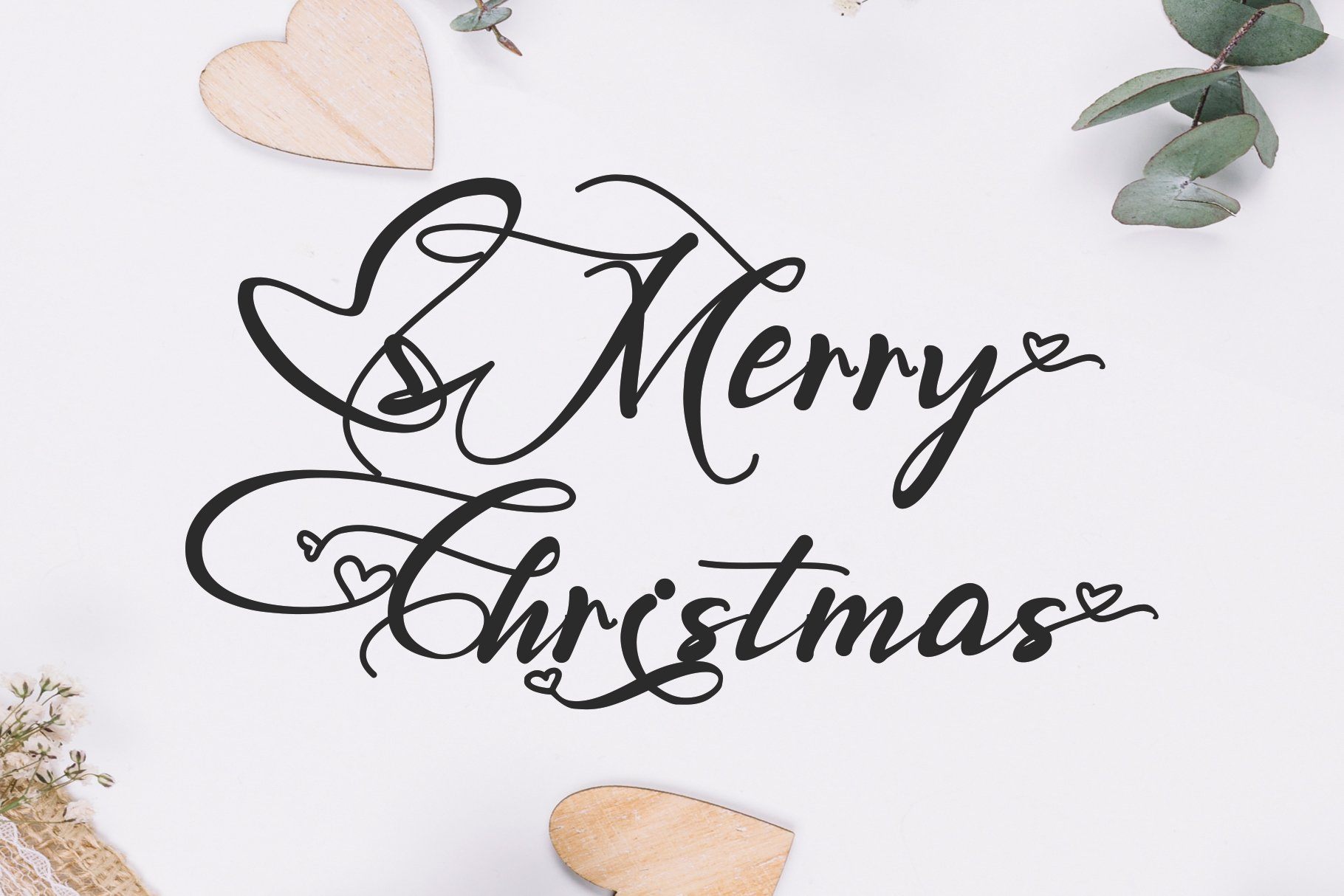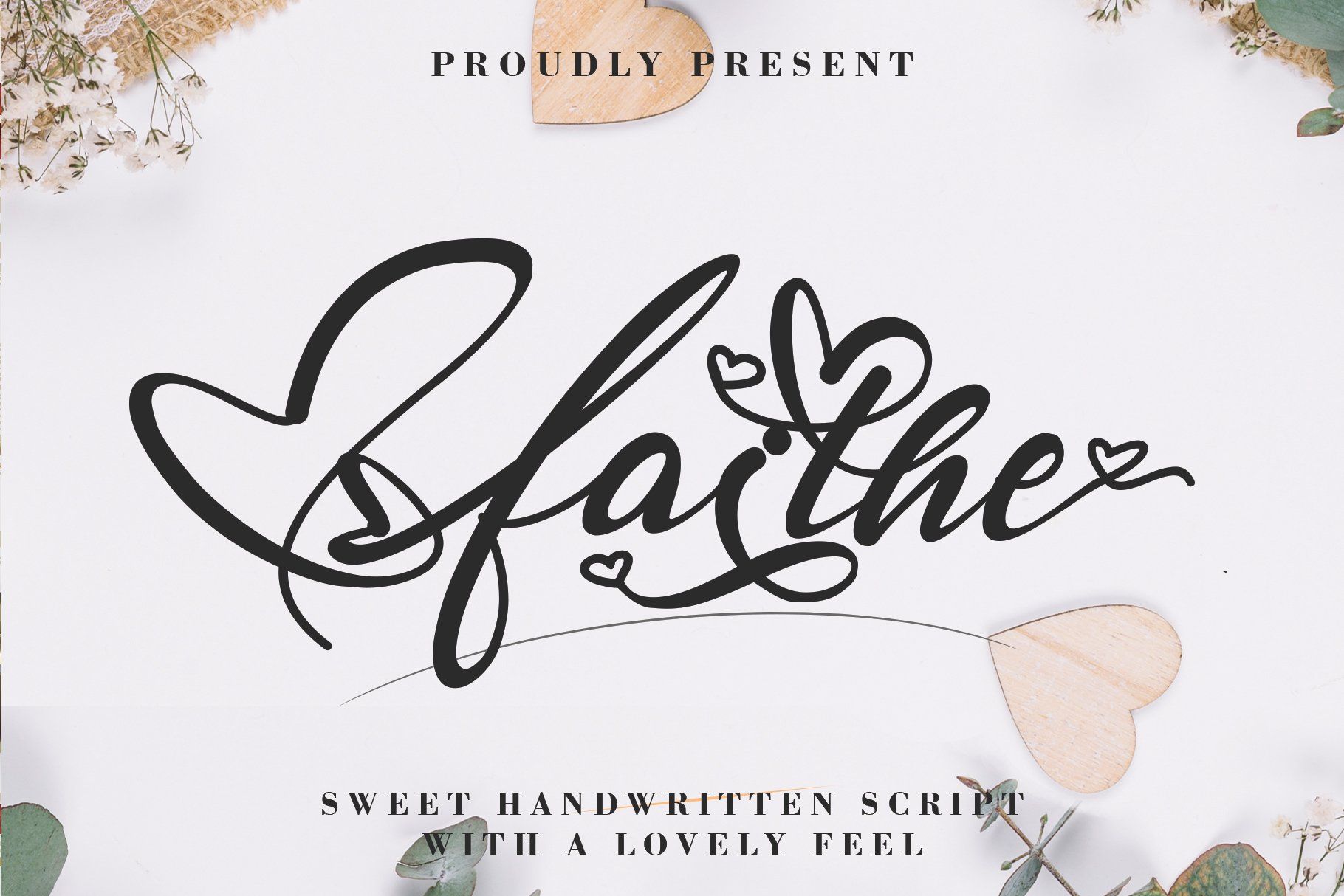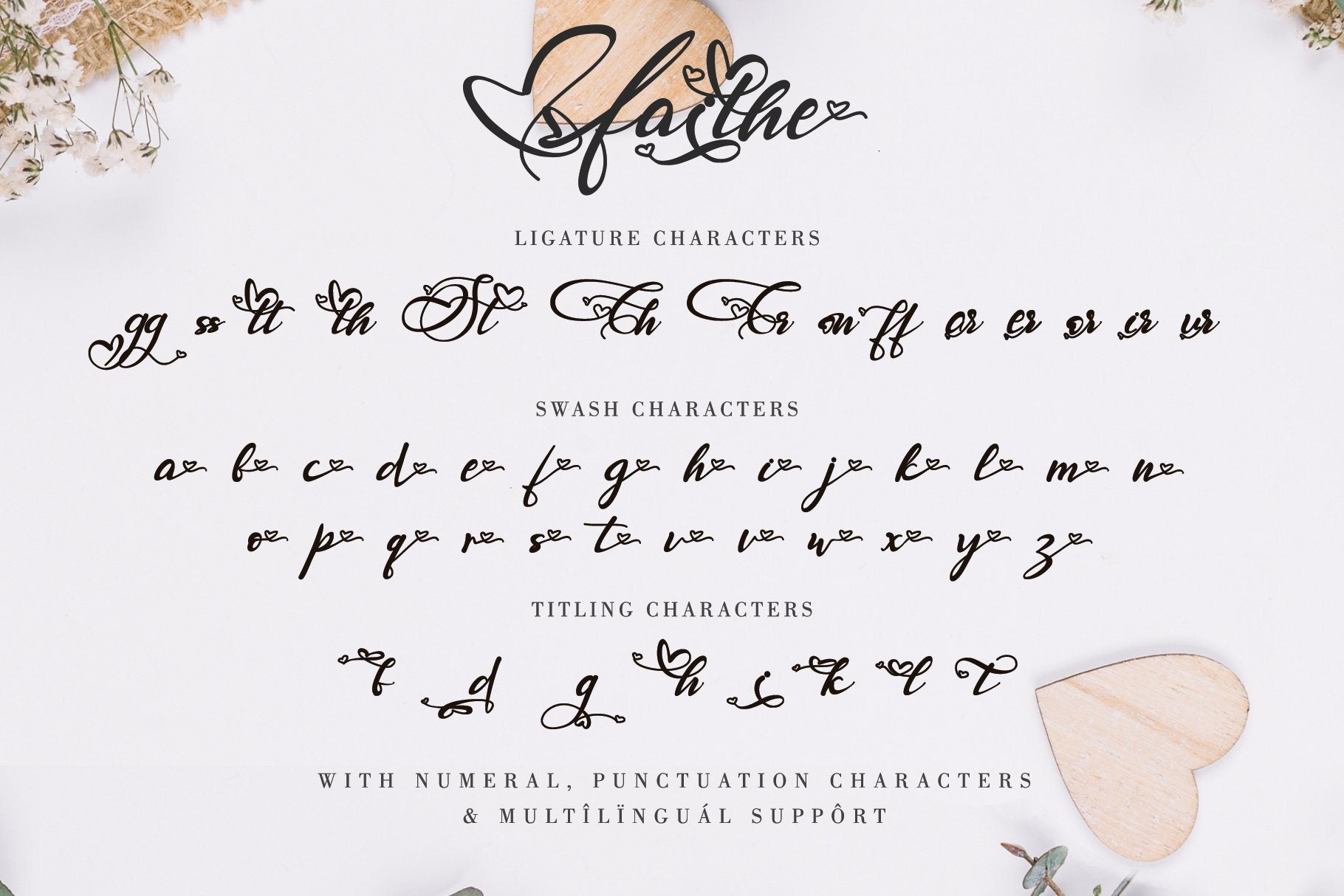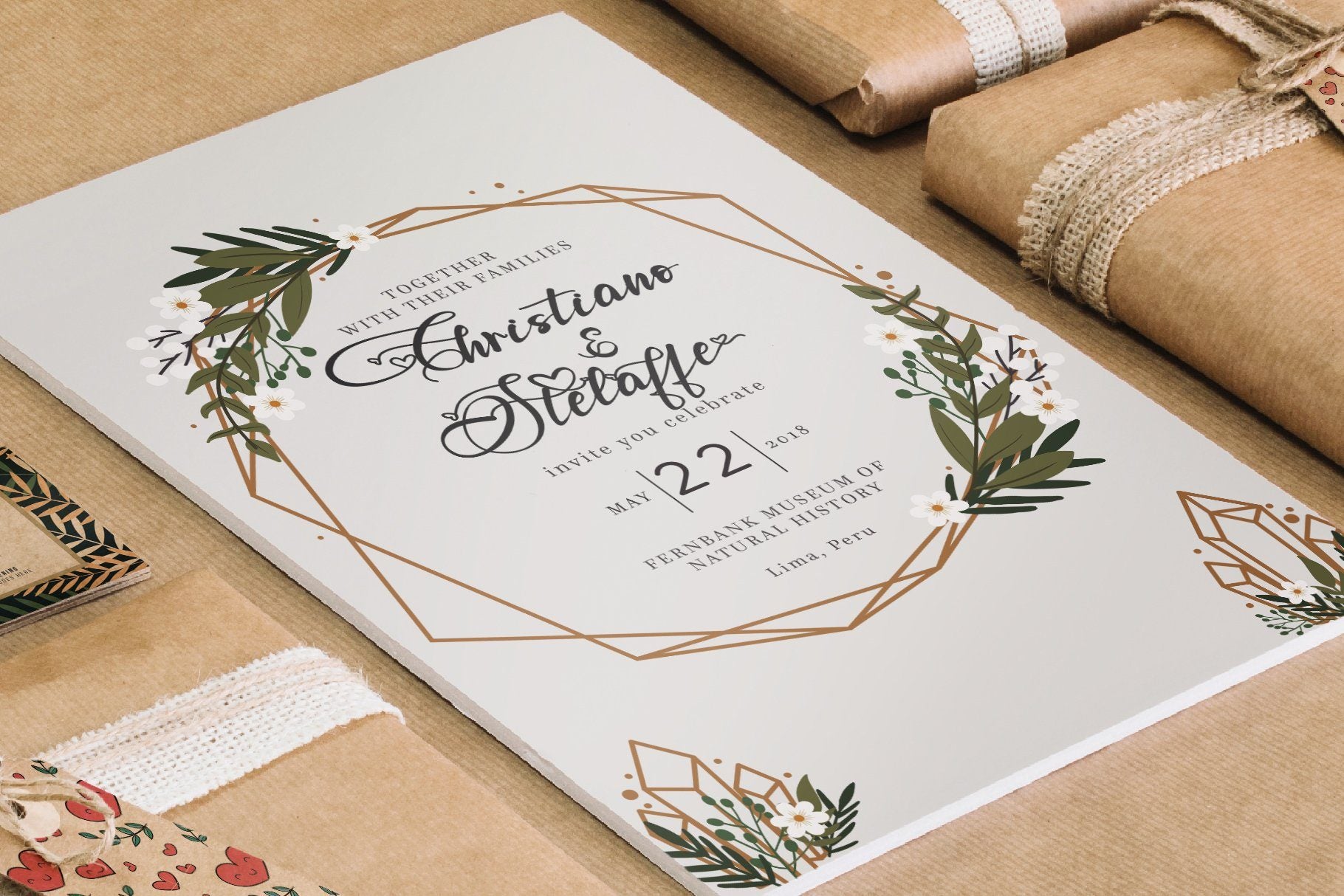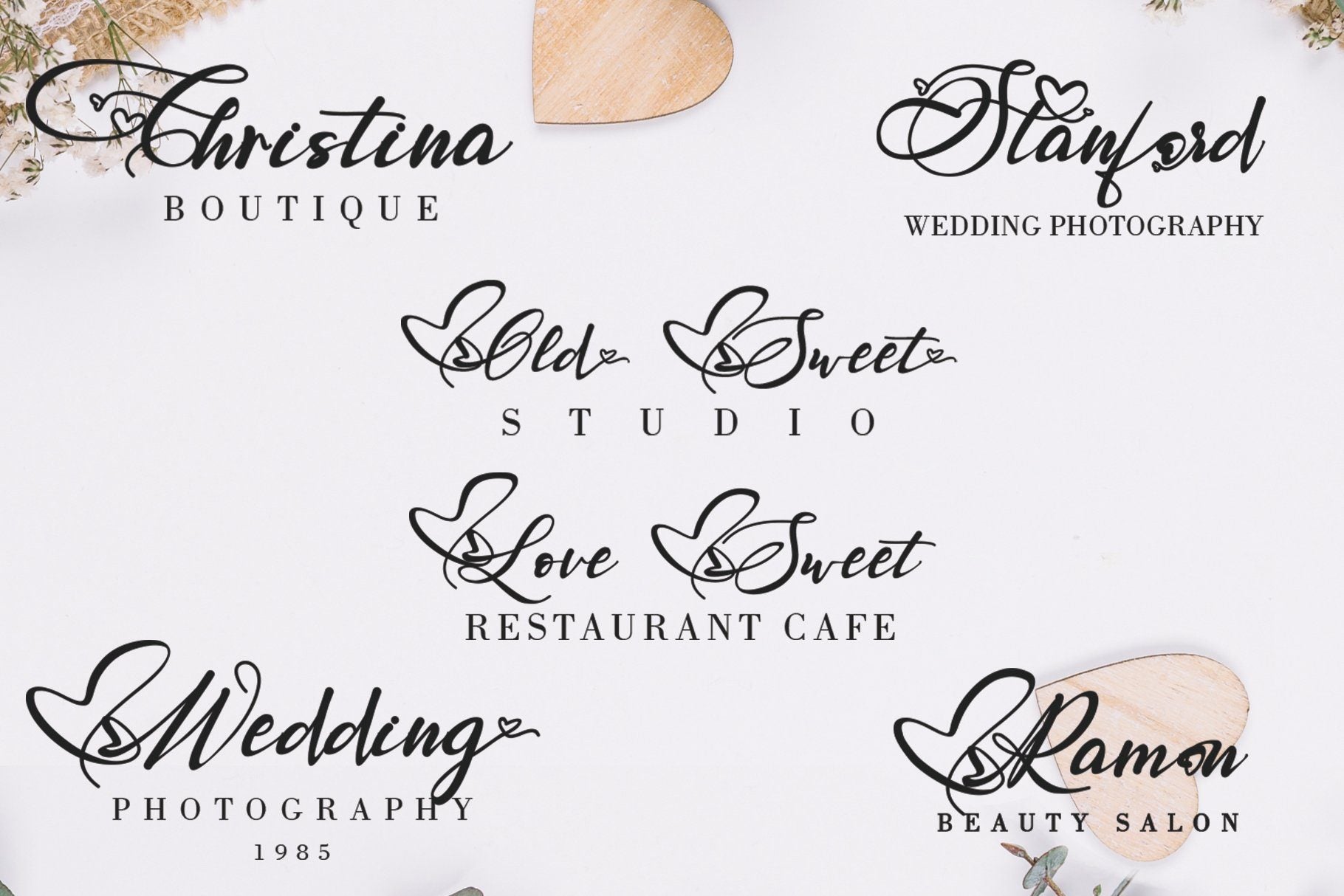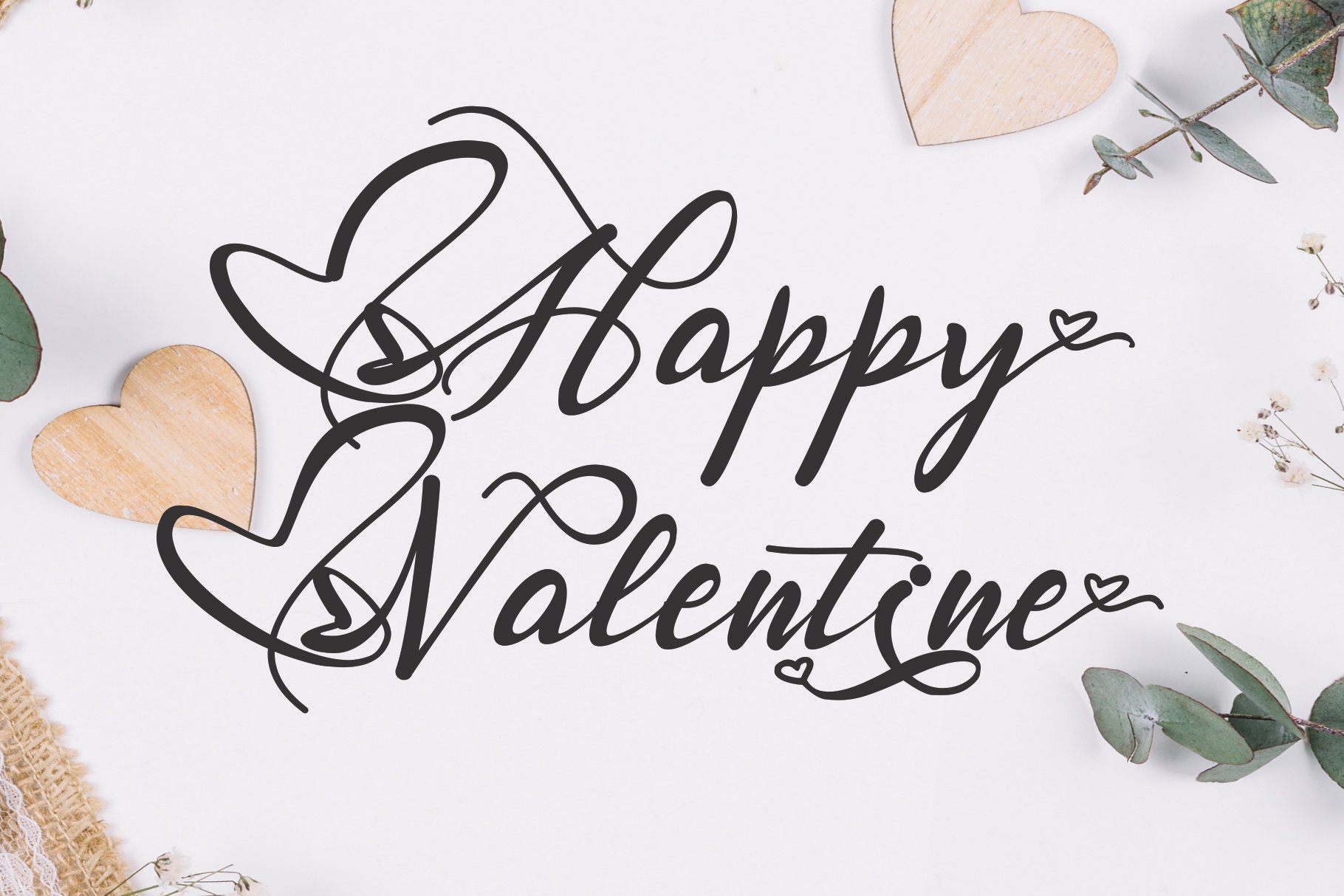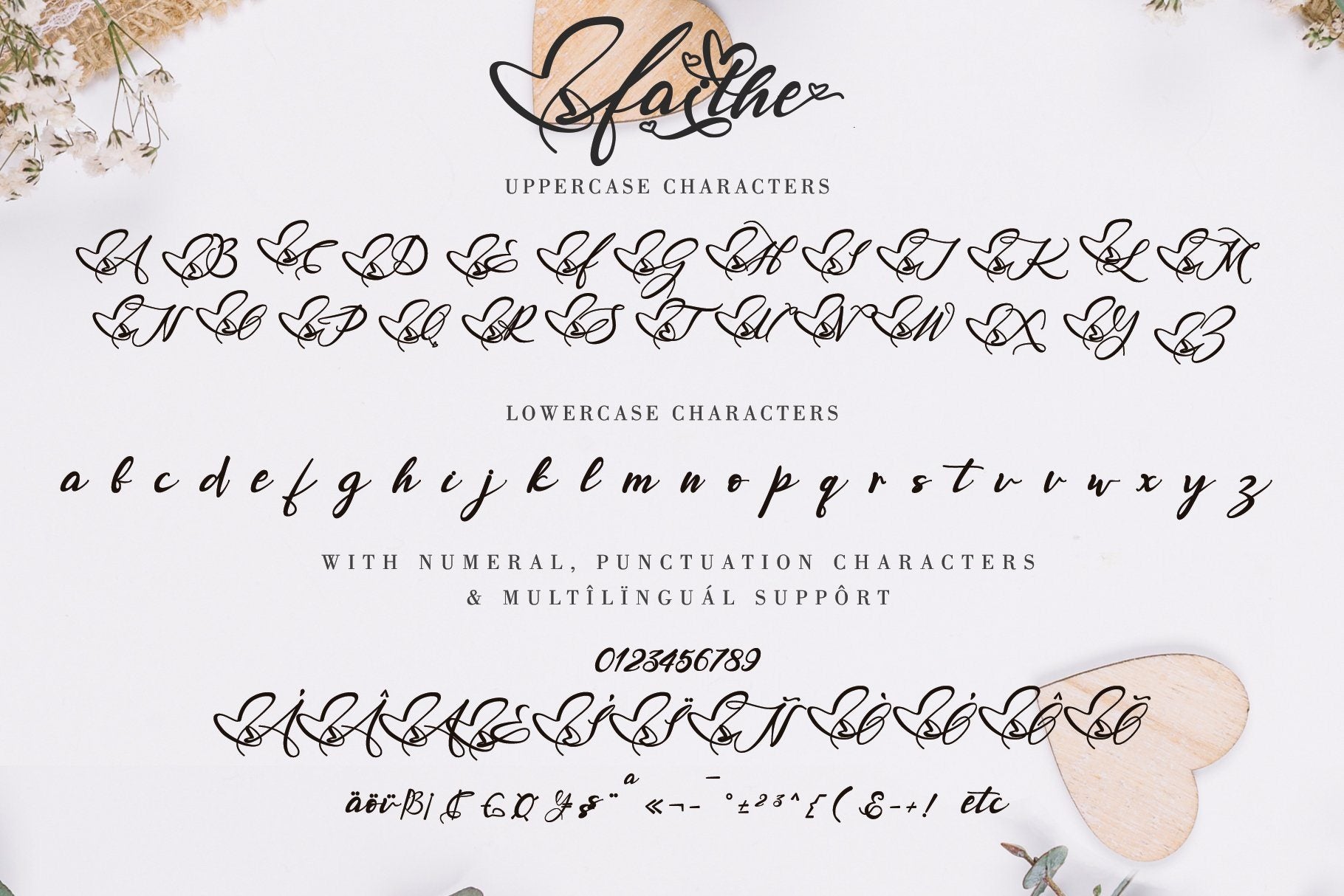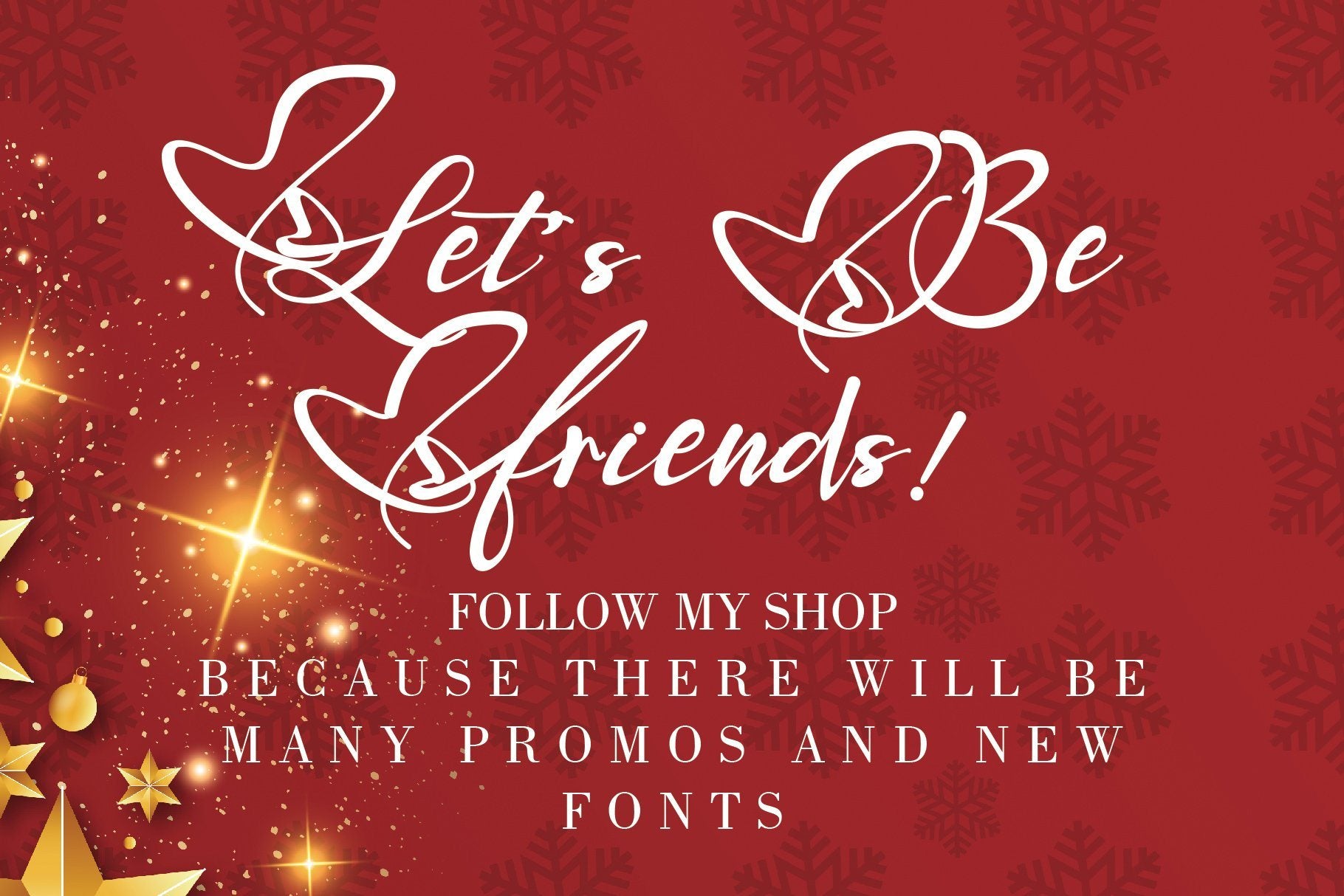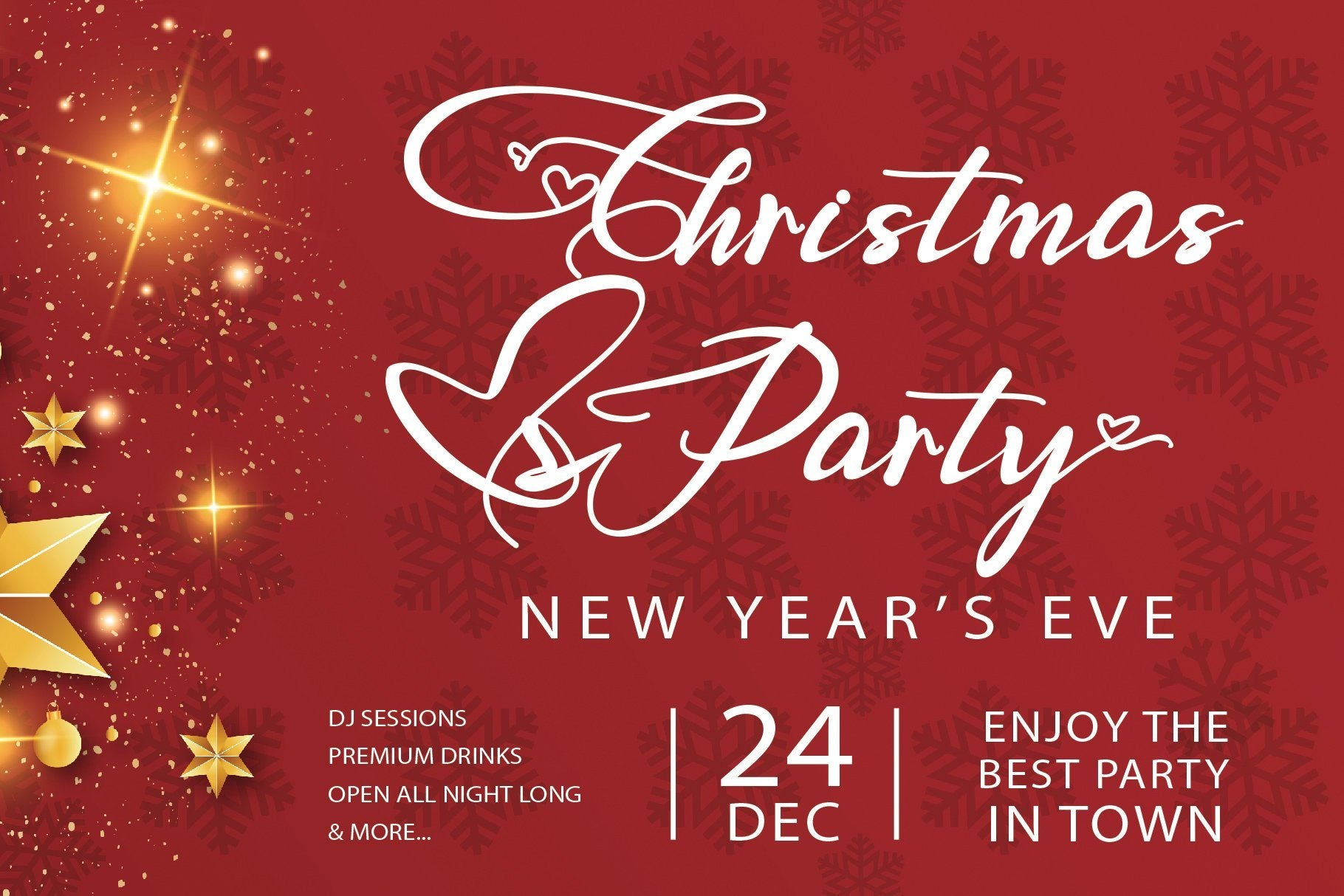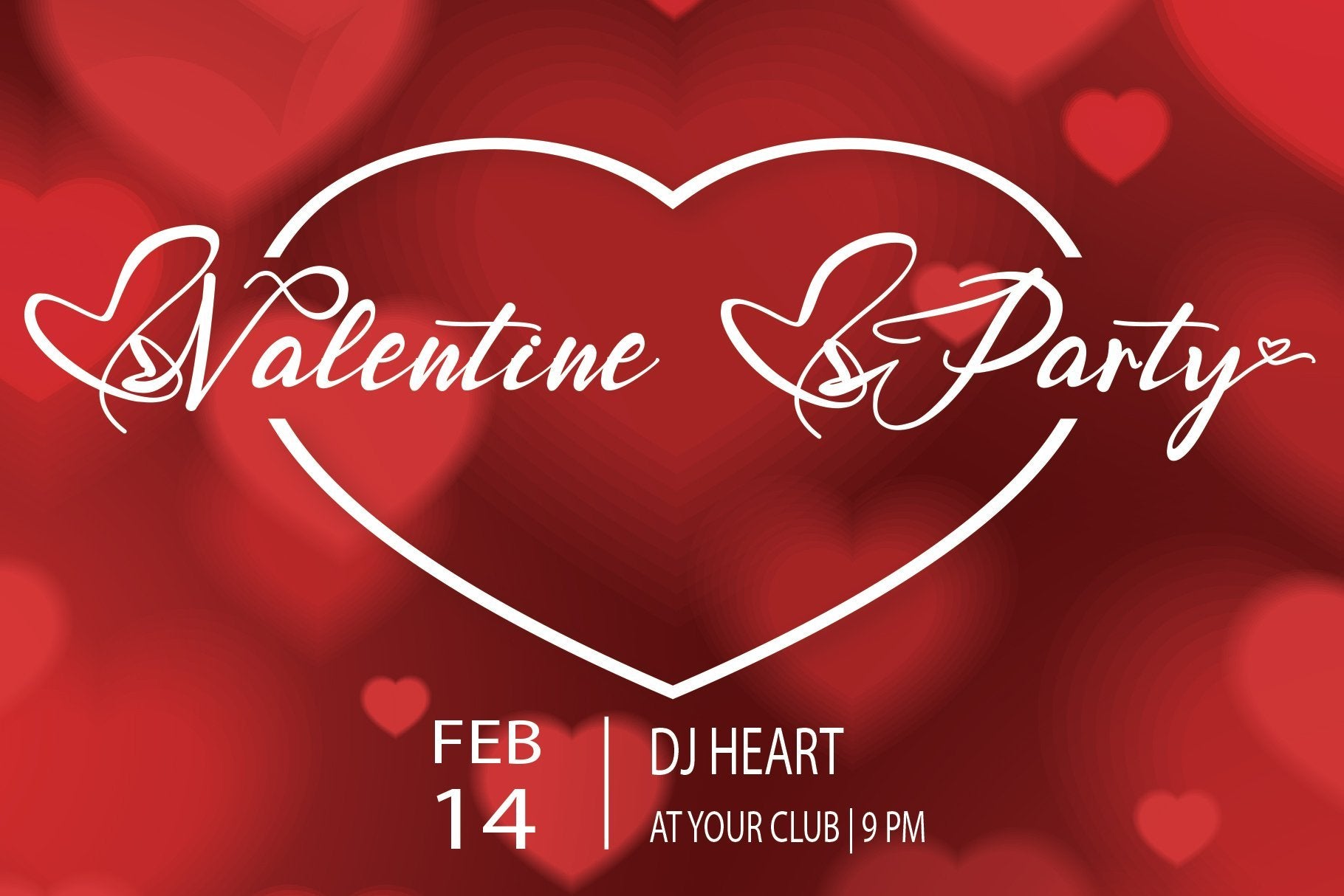
Faithe
About Faithe
Faithe is an incredibly sweet and delicious handwritten script with a lovely feel. Whether it’s Valentine’s Day or Christmas, this the ultimate font for turning any romantic crafts idea into a stunning piece of art! What’s included: Faithe (TTF, OTF, WOFF) Works both on Mac & PC Simple installations Swash , Titling, and Ligature Accessible in the Adobe Illustrator, Adobe Photoshop, Adobe InDesign, CorelDraw, even work on Microsoft Word. Support multilingual; ä ö ü Ä Ö Ü ß ¿ ¡ To access the alternate glyphs, you need a program that supports OpenType features such as Adobe Illustrator CS, Adobe Photoshop CC, Adobe Indesign, and CorelDraw. More information about how to access alternate glyphs, check out this link (http://goo.gl/ZT7PqK) To stay up to date for my latest job, follow me and let’s be friends because there will be many promos. Thanks for checking out my store, and feel free to get in touch if you have any questions!  don’t wait anymore, put it in your shopping basket 🙂 and follow me, because there will be many promos! Our other products : BEST SELLER REINDEER SNOWKY BRUSH GAMOS HERTINA JENNIE ANTIKA AURORA BLACK PINK SIGNATURE California Street BESTOWENS FAMILY